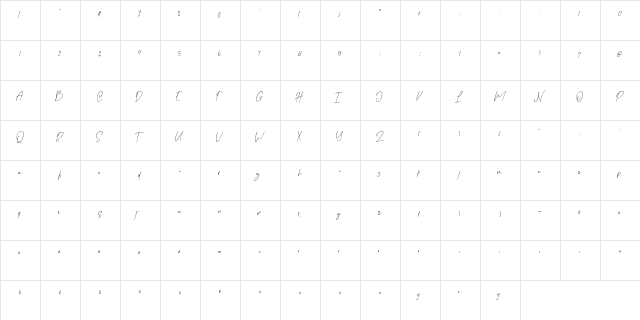
The Quotes Script
| Style | Script |
| Foundry | Crump Hand |
| Designer | Stefie Justprince |
Design Context for The Quotes Typeface
The Quotes flows with the natural rhythm of handwritten lettering, making it ideal for designs that call for warmth and personal expression.
Font Pairing: Combine The Quotes with a simple geometric sans for maximum contrast — the tension between flowing curves and clean structure is a classic typographic pairing.
Pro Tip: Pair The Quotes with a clean sans-serif for supporting text. The contrast between fluid script and geometric structure creates an elegant typographic hierarchy.